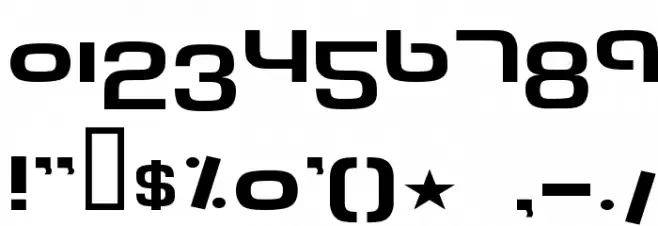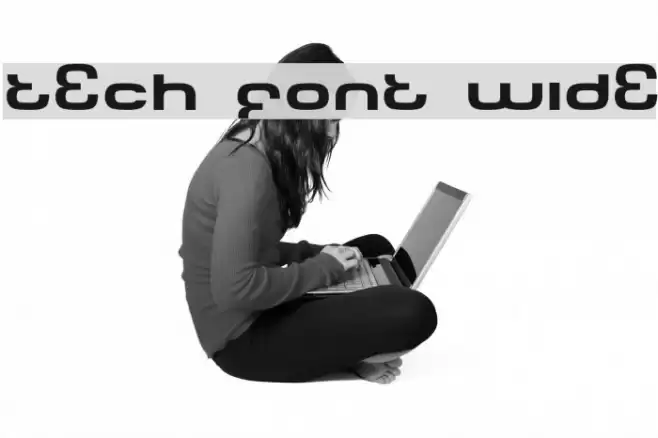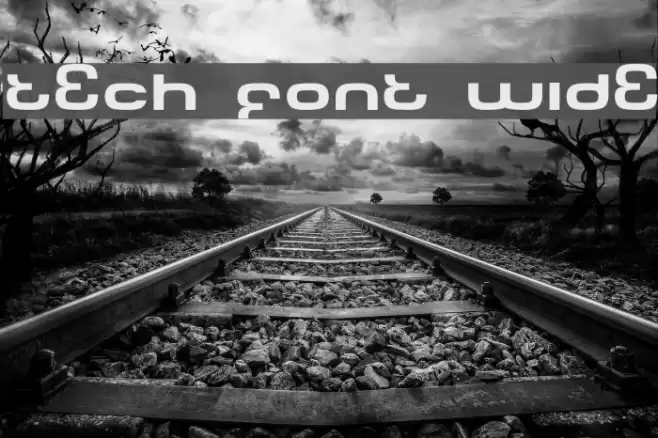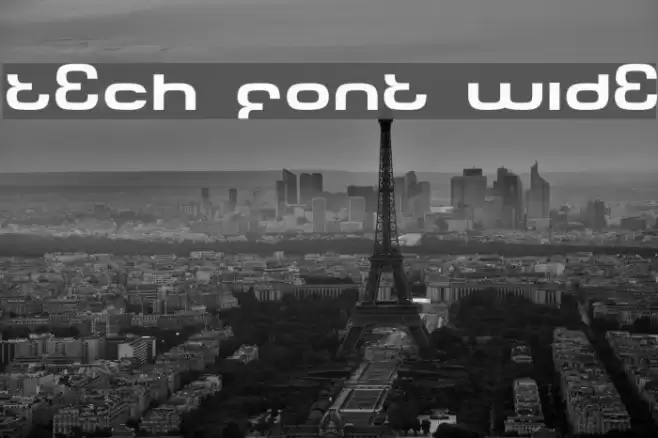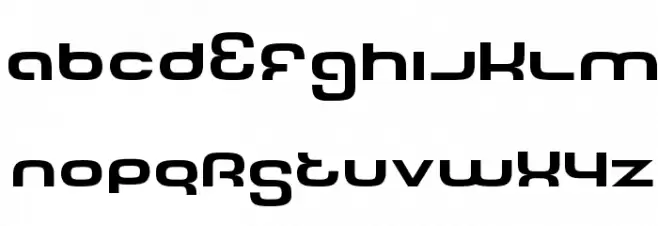
Tech Font Wide Font
| 幅 | Expanded |
| 用途 | Headlines, Logos, Digital Interfaces |
| おすすめプロジェクト | Ideal for technology branding, sci-fi themed designs, digital interfaces, and modern advertising. |